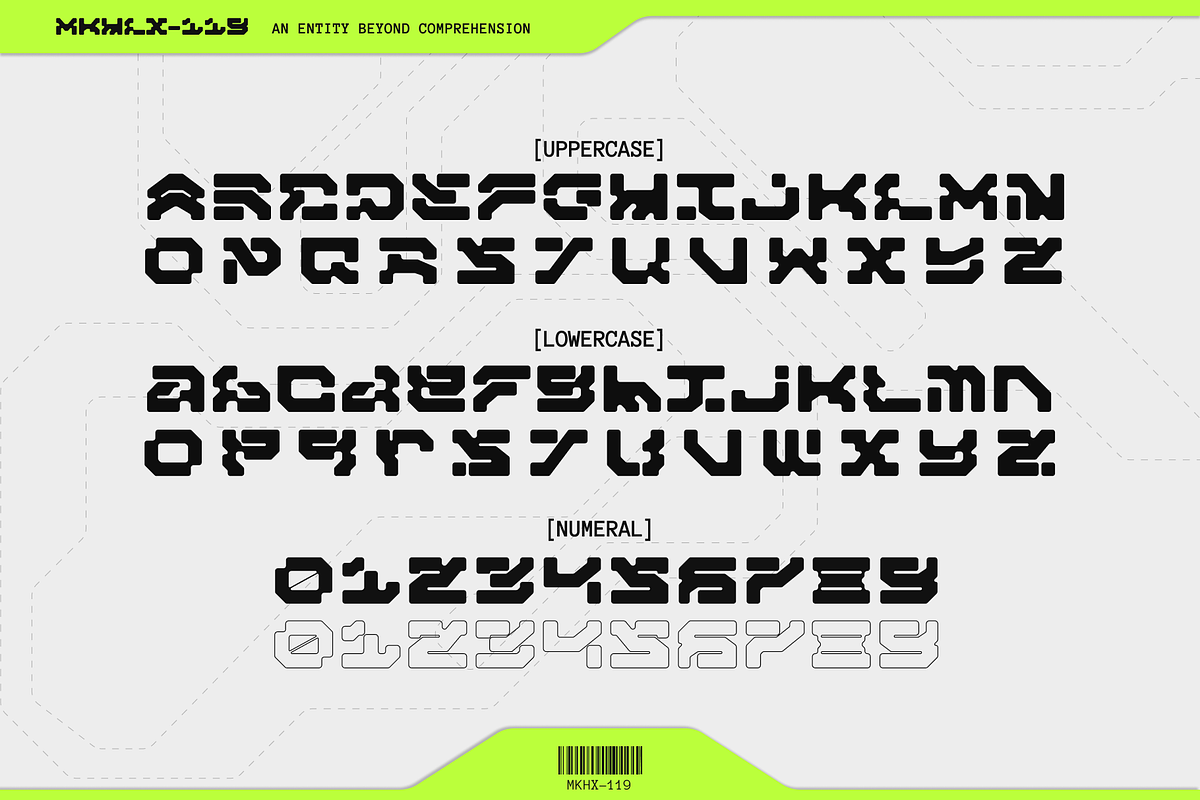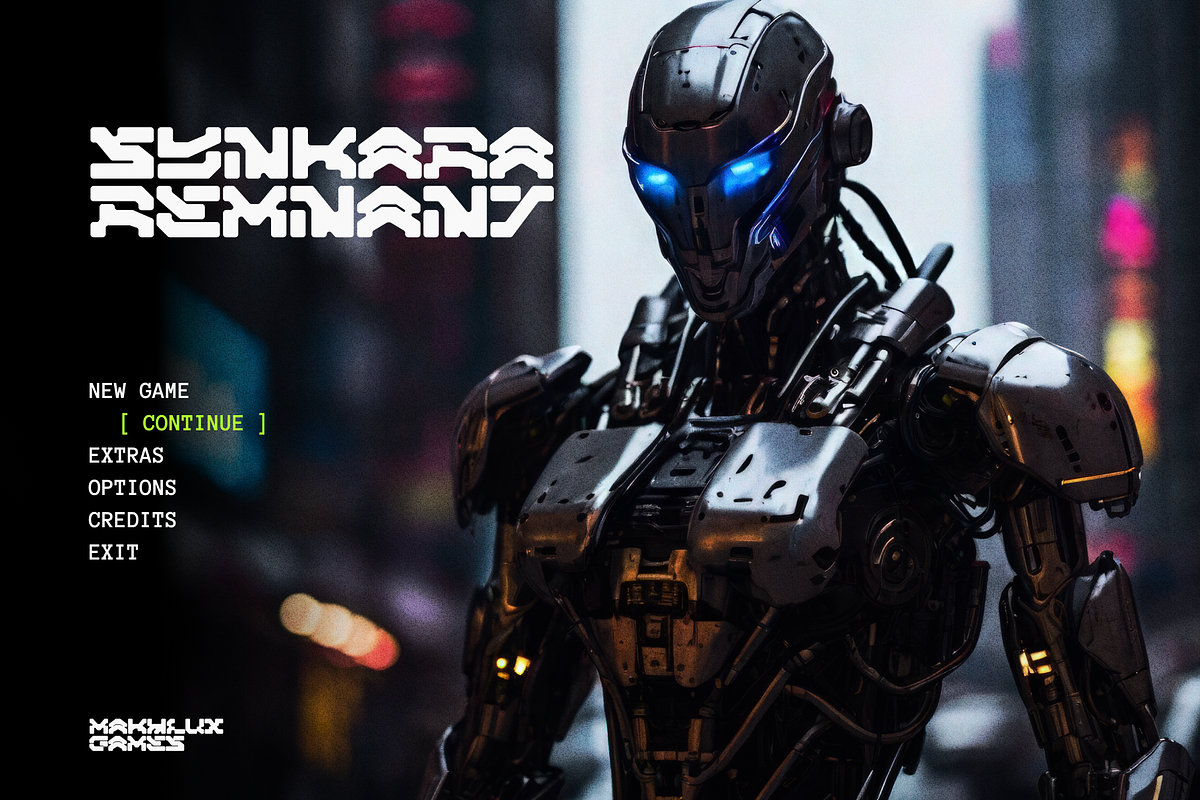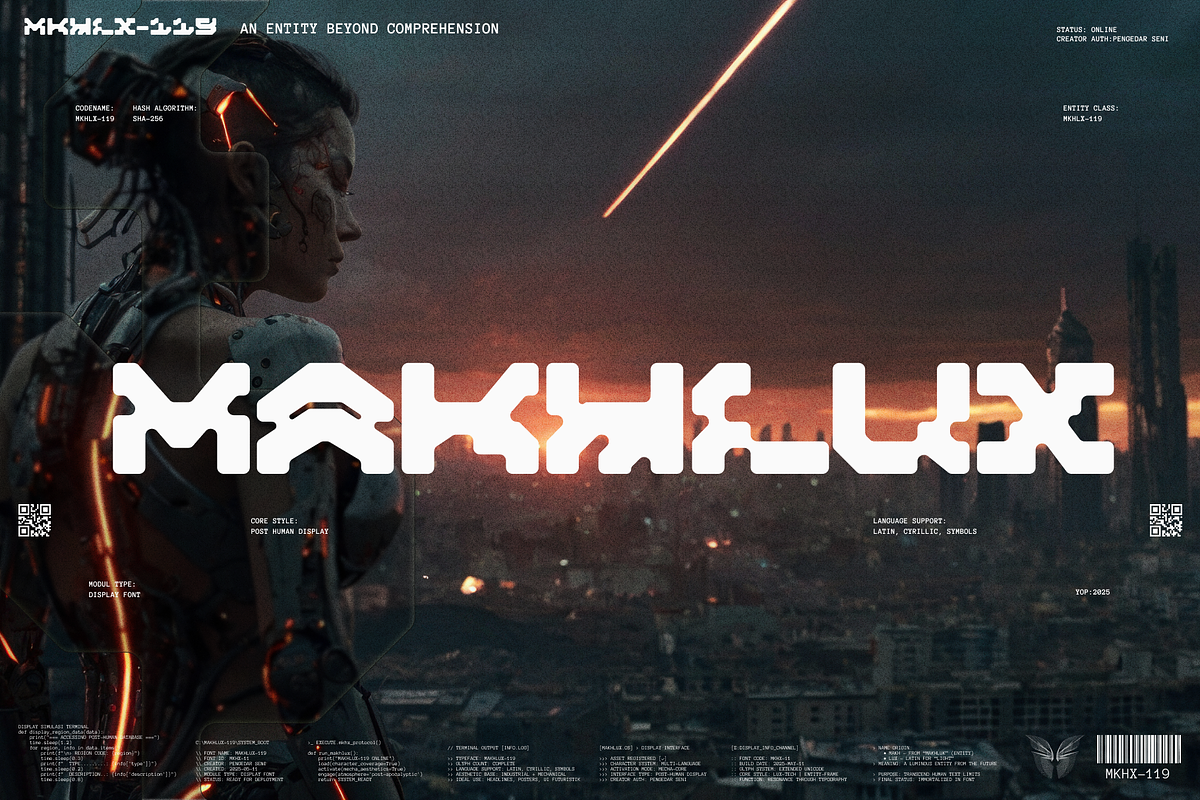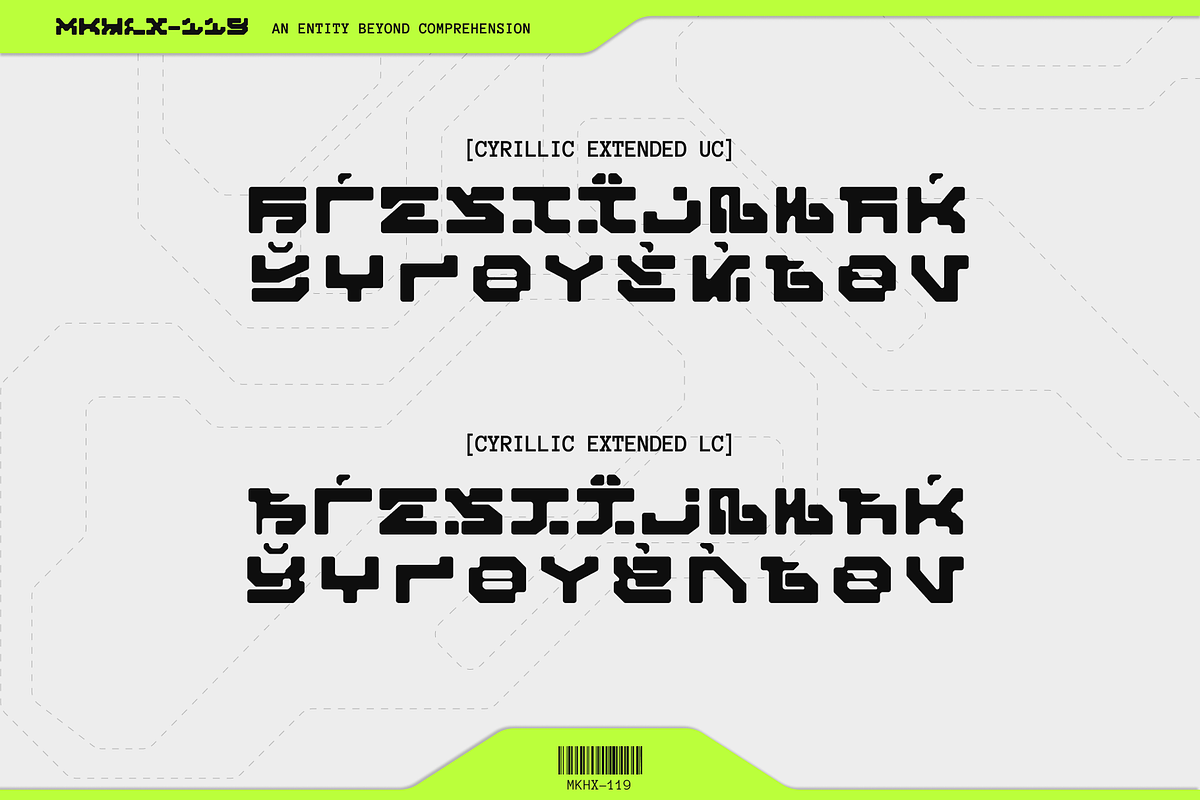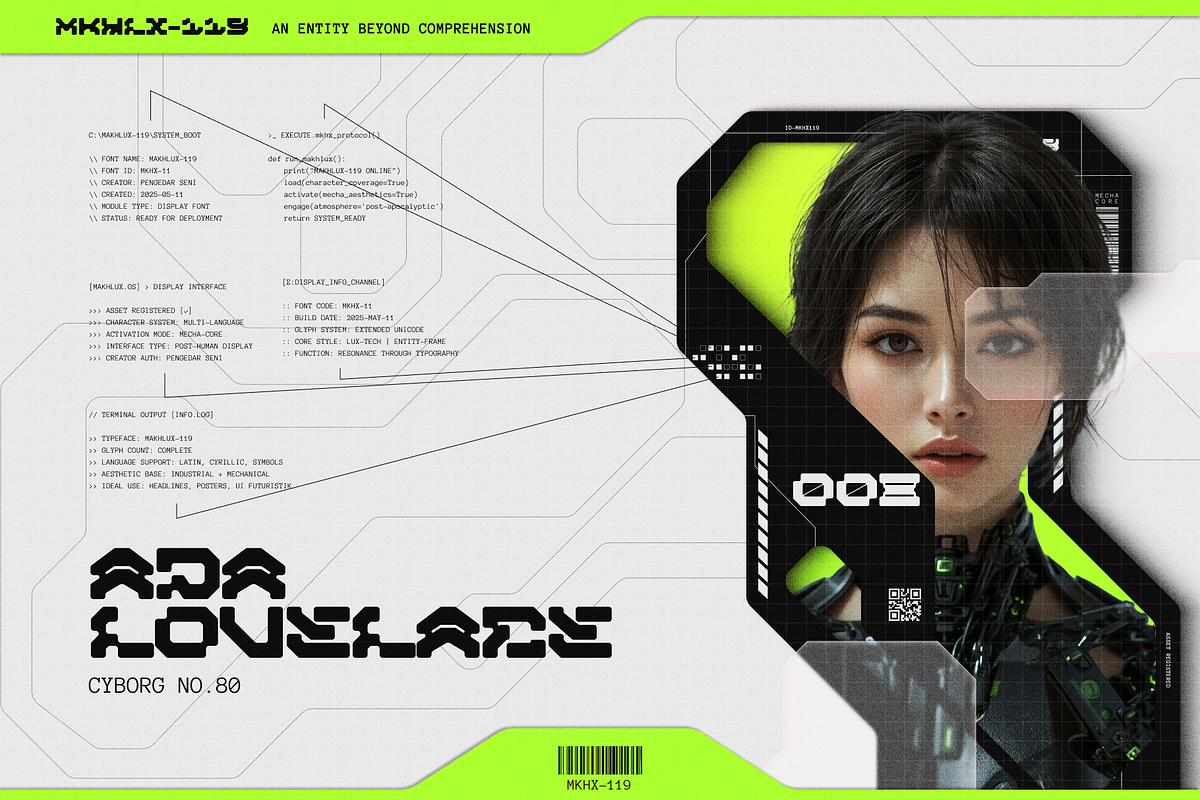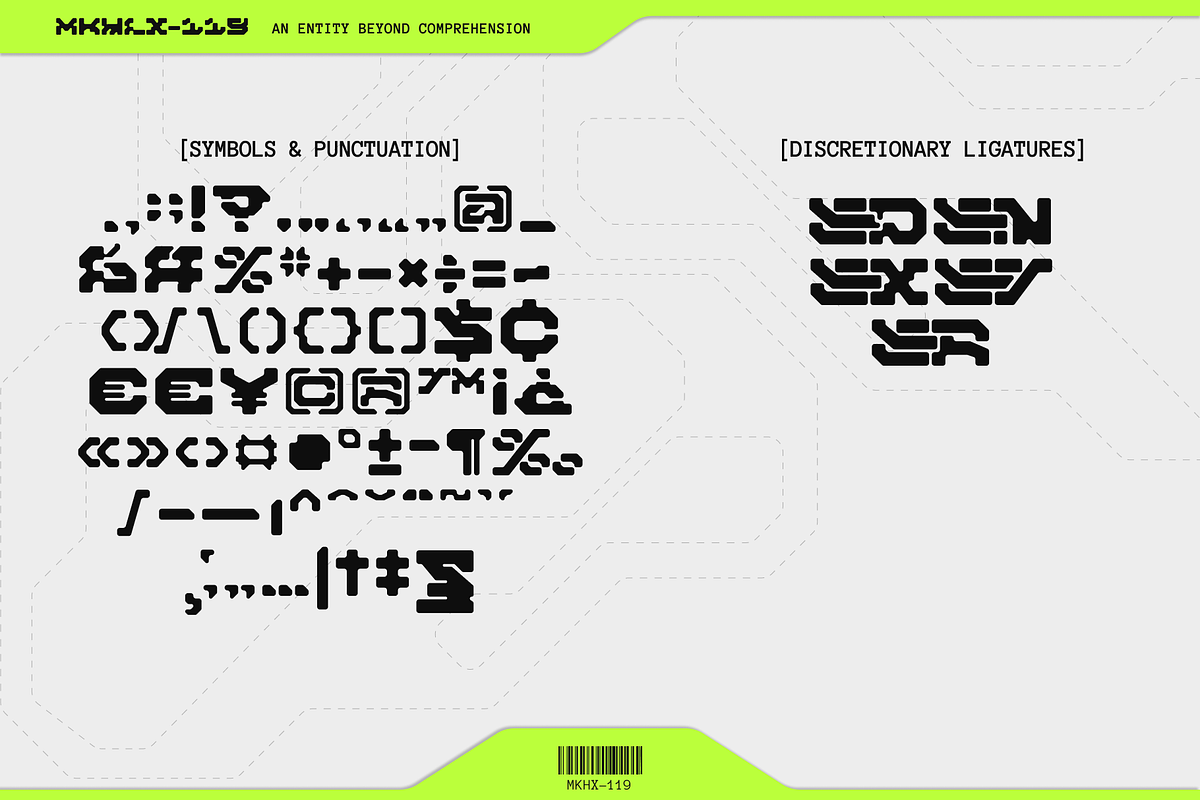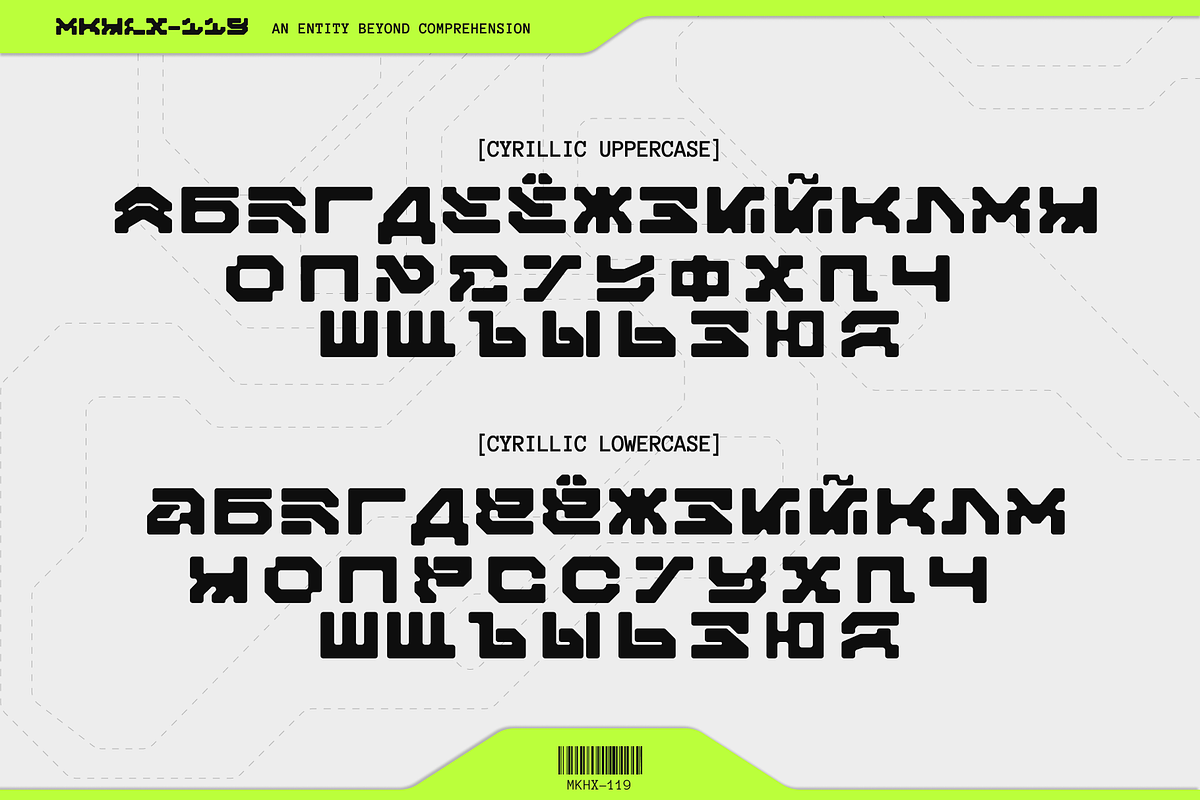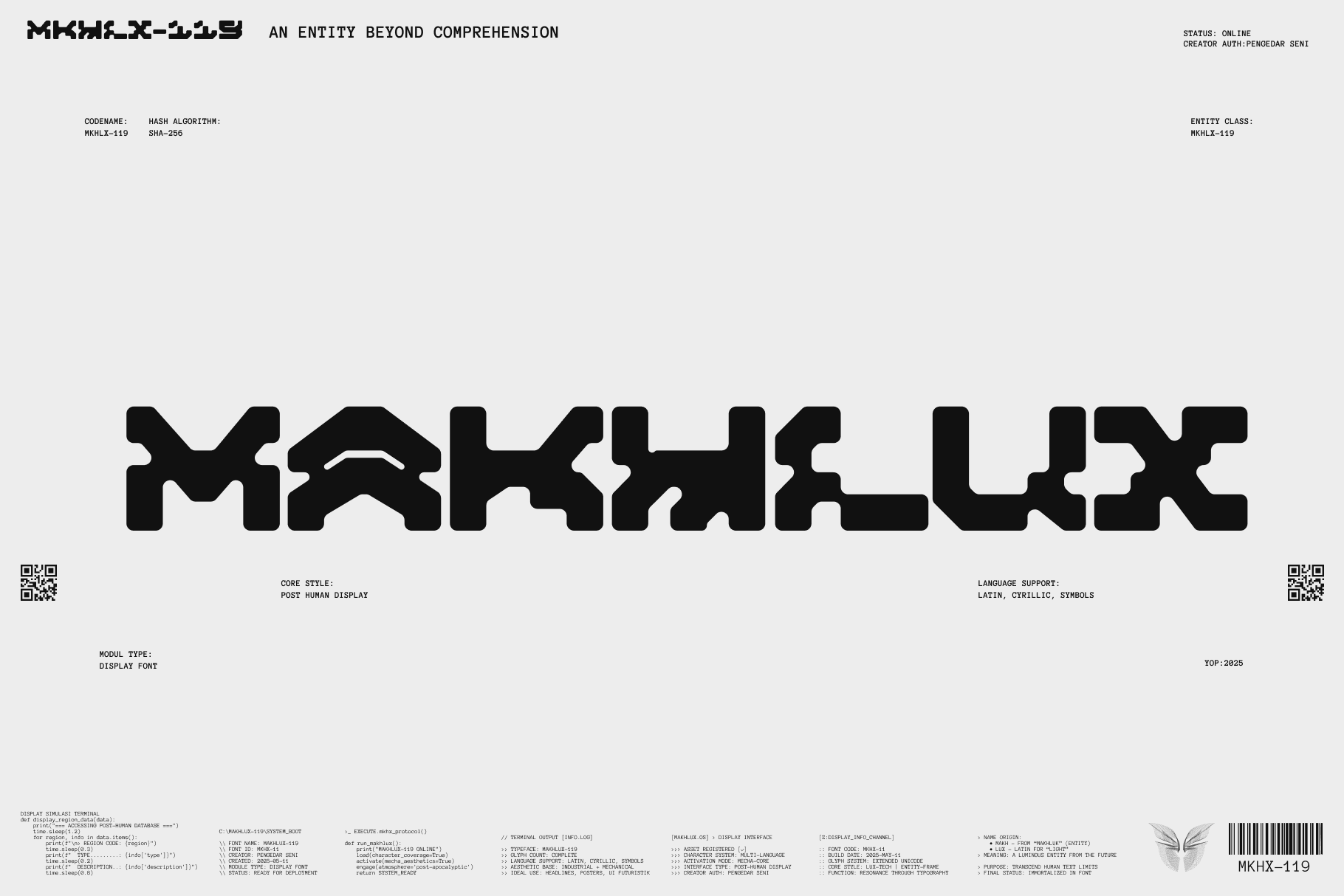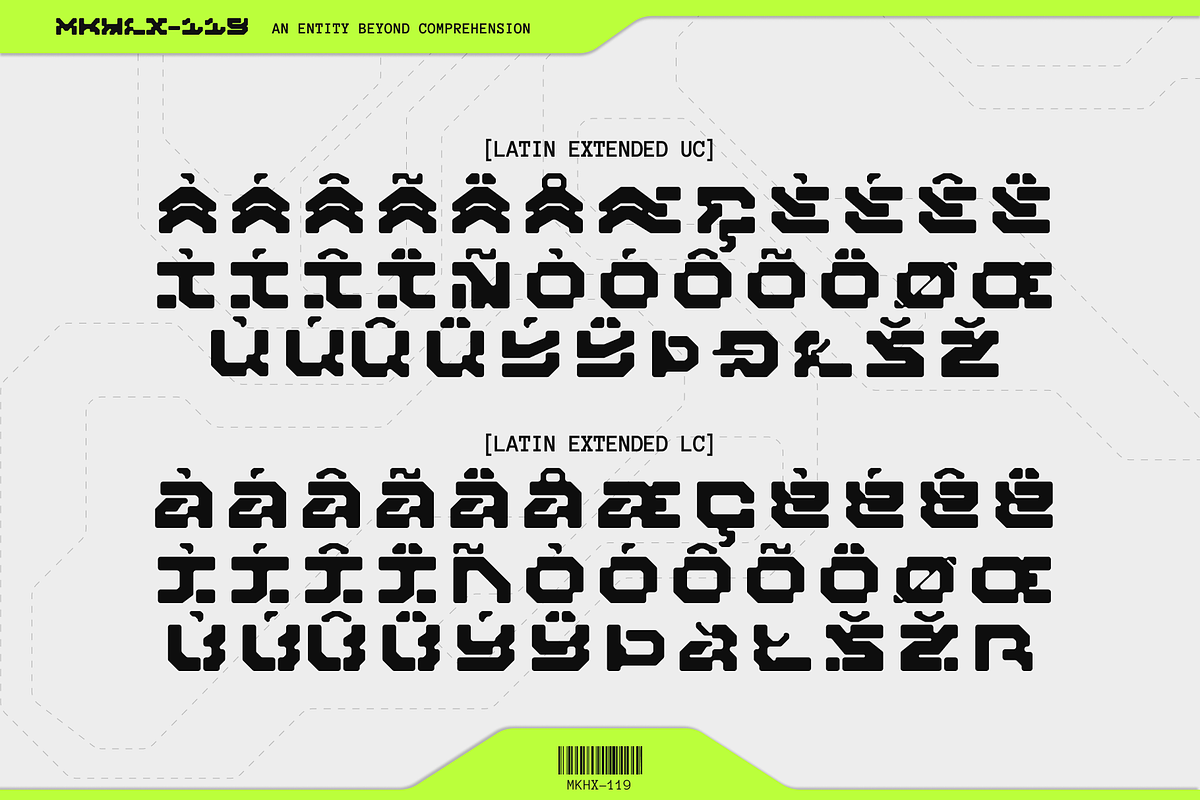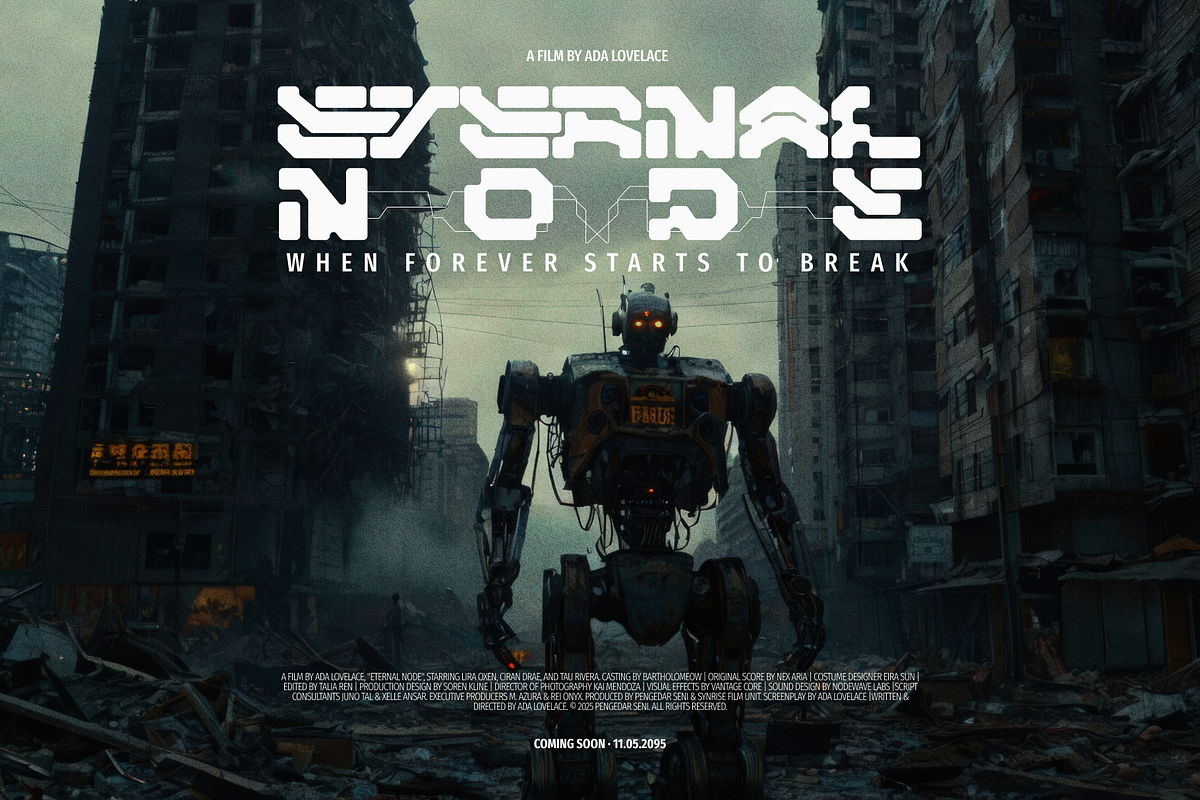
Makhlux 119 - Futuristic Typeface
MAKHLUX – A Cyber Mecha Display Typeface Inspired by Entities and Light from the Post-Human World A creature from the future. A light from digital ruins.
MAKHLUX is a cyber-futuristic display typeface that fuses mecha aesthetics, post-apocalyptic atmosphere, and evolved machine language. Derived from the Indonesian word “makhluk” (meaning creature or entity) and the Latin word “lux” (meaning light), MAKHLUX is the typographic embodiment of a luminous entity born from the debris of the old world. It is a synthetic lifeform — a fusion of organic and mechanical, of human language and machine code.
With sharp, angular, and geometric letterforms, MAKHLUX emerges as a digital artifact from a vanished era — a visual creature ready to invade your creative projects with power and mystery. Ideal for cyberpunk themes, sci-fi visuals, tech-noir branding, mecha animation, and dystopian video game aesthetics.
The Meaning Behind MAKHLUX 🧬 “Makh” (from Makhluk, Indonesian) — A living entity or conscious being that exists between reality and the digital realm. 💡 “Lux” (Latin) — Light; symbol of energy, hope, and existence in digital darkness. 🤖 MAKHLUX — A digital creature of light, a post-human entity born within ruins and algorithms.
Why Choose MAKHLUX?
Cyberpunk Typography Entity – Designed to deliver a futuristic, glowing darkness of dystopian worlds.
Signature Letters: A, H, M, L – Bold, standout shapes designed to anchor your display compositions.
Mecha + Dystopia Style – Perfect for sci-fi posters, synthwave album covers, anime intros, or game UI.
Cyber Futuristic Aesthetic – Angular, edgy, techy shapes that feel like messages from another dimension.
Typeface as Lifeform – MAKHLUX is more than just a font — it's a living being that speaks through form.
MAKHLUX isn’t just a tool — it’s a digital entity that brings language to life in new shapes. Let your words evolve into creatures, and those creatures emit light from the future.